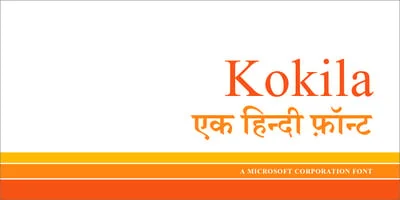
Kokila Font
Kokila Font is perfect for authentic Indian restaurant branding, traditional Bollywood movie promotions, cultural Indian festival celebrations, spiritual yoga center signage, authentic Indian spice packaging, traditional Indian textile showroom marketing, classical Indian music academy materials, Indian cultural heritage museum displays, authentic Ayurveda wellness center promotions, and distinguished Indian cultural institution presentations. Its harmonious Indian character makes it ideal for projects requiring Indian authenticity and South Asian cultural sophistication.
What makes Kokila Font exciting is its graceful embodiment of Indian heritage and South Asian elegance with flowing letterforms and cultural characteristics that capture the essence of Indian tradition and spiritual wisdom excellence. The font features harmonious proportions, Indian-inspired details, and cultural character construction that create authentic Indian atmosphere and spiritual appeal. Its serene personality brings cultural depth and spiritual authenticity to contemporary designs while maintaining the clarity essential for cultural communications and Indian presentations. The carefully crafted traditional elements ensure cultural accuracy while preserving the distinctive character that embodies the essence of Indian heritage and South Asian excellence.
Kokila Font comes in multiple cultural variations including Light, Regular, Medium, Bold, and Traditional styles. Each family member maintains the distinctive Indian character while offering comprehensive flexibility for South Asian typography and Indian cultural brand system development. The complete font family includes alternate characters, Indian symbols, and cultural decorative elements that provide extensive tools for creating immersive Indian design experiences and authentic South Asian brand storytelling.
Whether you're developing Indian brands, South Asian cultural organizations, or spiritual heritage projects, Kokila Font provides the cultural authenticity needed to communicate with Indian communities and South Asian culture enthusiasts who appreciate Indian tradition and spiritual sophistication. The font's harmonious appeal resonates with Indian professionals, cultural educators, and spiritual practitioners seeking authentic Indian credibility and cultural sophistication. Its comprehensive character set includes Indian symbols and cultural marks, making it perfect for creating complete Indian brand systems and memorable South Asian storytelling across diverse cultural applications and tradition-focused design projects that celebrate Indian heritage and South Asian excellence.